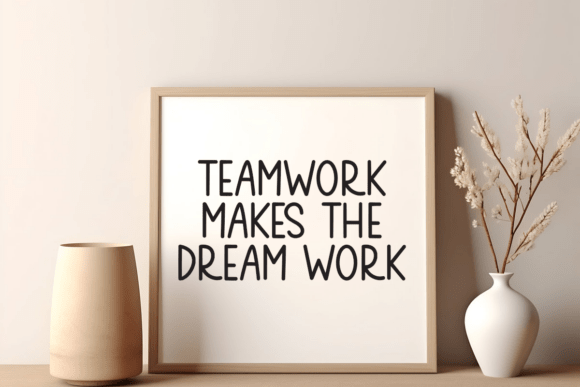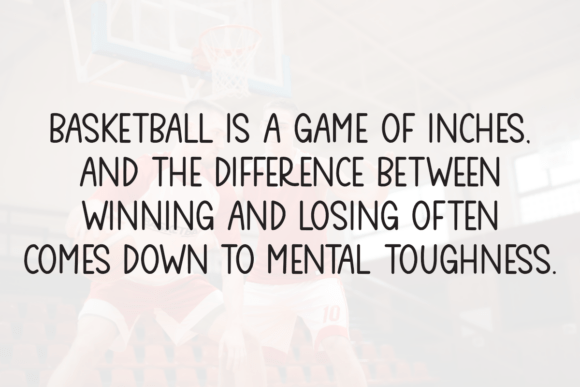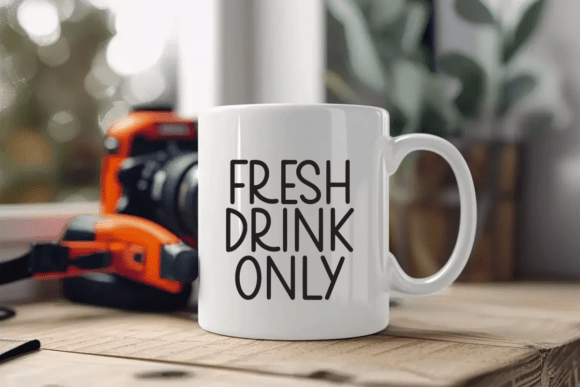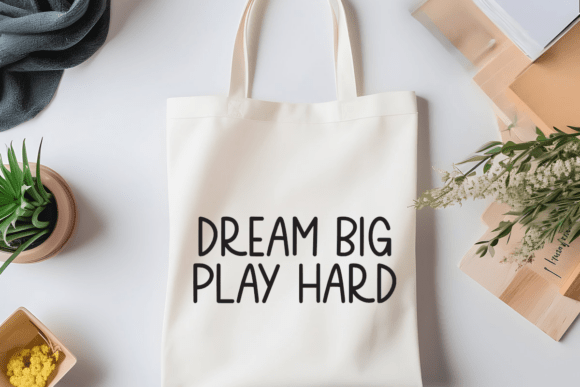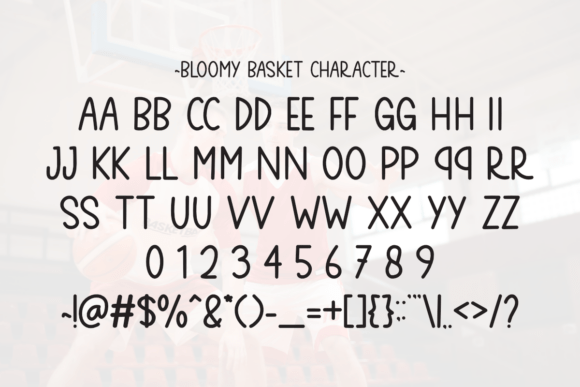
Designing with Delight: Introducing the Bloomy Basket Font
As designers, we’ve all been there – staring at a blank canvas, trying to conjure up the perfect font to bring our creative vision to life. And then, like a ray of sunshine, it happens. The perfect font appears, and our design dreams are within reach. For many of us, that font is the Bloomy Basket Font – a playful handwritten font that adds a touch of whimsy to any project.
The Bloomy Basket Font is more than just a pretty face; it’s a versatile tool that strikes a perfect balance between casual and readable. Whether you’re creating sporty branding, children’s products, posters, or energetic packaging, this font is the perfect companion. And for designers, that’s invaluable – a reliable go-to that can elevate any design from good to great.
Bloomy Basket Font Key Features
- Unique Characteristics: The Bloomy Basket Font features a unique, hand-drawn design with a playful and whimsical feel, making it ideal for creative and artistic projects.
- Font Style and Weight: The Bloomy Basket Font is available in a single style and weight, providing a consistent and cohesive look across all text elements.
Bloomy Basket Font Review
Overall, I’m quite pleased with the Bloomy Basket Font. Here are some things that work well: ✨
- Unique and playful style: Bloomy Basket Font brings a whimsical feel to any design, making it perfect for creative projects.
- Easy to read: Despite its playful style, the font is surprisingly easy to read, making it suitable for body text as well as headings.
- Limited language support: Bloomy Basket Font only includes Latin characters, which may be a limitation for designers working on multilingual projects.
- No bold or italic variations: While the font has a range of weights, there are no bold or italic variations available, which may limit its versatility.
Overall, I’d give Bloomy Basket Font 4 out of 5 stars. It’s a great choice for designers looking for a unique and playful font, but may not be the best option for more formal or multilingual projects.
Tips for Getting the Most Out of Bloomy Basket Font
Use the font in combination with other playful and whimsical elements to create a unique and eye-catching design.
Experiment with different font sizes, colors, and styles to add depth and visual interest to your design.
Consider using Bloomy Basket Font for titles, headings, and other emphasis elements to draw attention to important information.
Bloomy Basket Font is perfect for:
Craft and DIY projects, such as invitations, party decorations,
Alternative Fonts to Bloomy Basket Font
Great Vibes is a beautiful, elegant script font that works well for invitations, wedding cards, and other creative projects. It features a flowing, handwritten feel and comes in a range of weights and styles. Great Vibes is similar to Bloomy Basket Font in its whimsical and playful nature, but it has a more refined and sophisticated look.